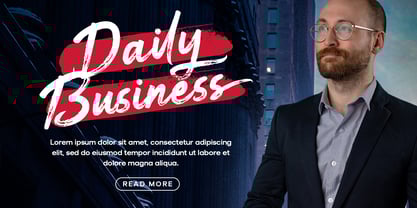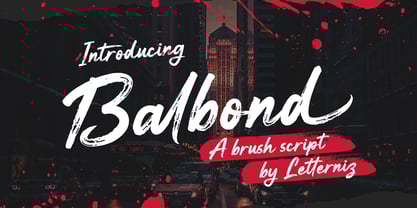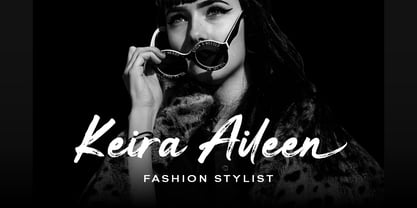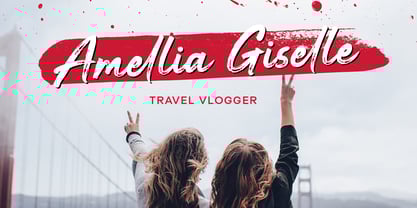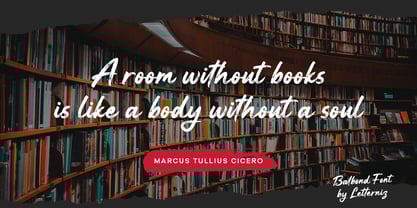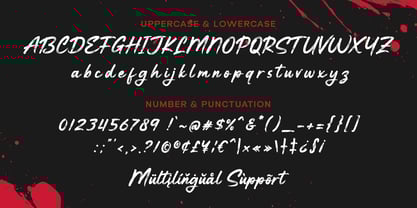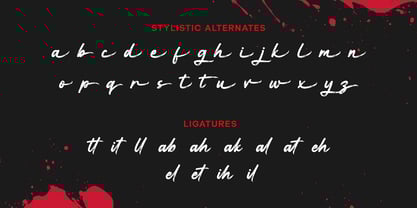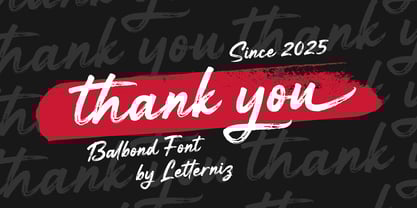
Balbond
by Letterniz
The Balbond Font Family was designed by Nizar Bagas Maulana and published by Letterniz. Balbond contains 1 styles.
Balbond is a beautiful brush signature font, with its rugged texture and dynamic letterforms. Made for any professional project brandings, such as, signature logos, watermarks, wedding invitations, brandings, promotions, product packagings, posters, apparel, and any project that needs a touch of authenticity and creativity.
Balbond brush font includes a full set of hand-writing uppercase and lowercase letters, numerals, punctuations, and ligatures. This font gives a realistic hand-writing style.
• Uppercase & lowercase letters
• Numerals & punctuation
• Multilingual support